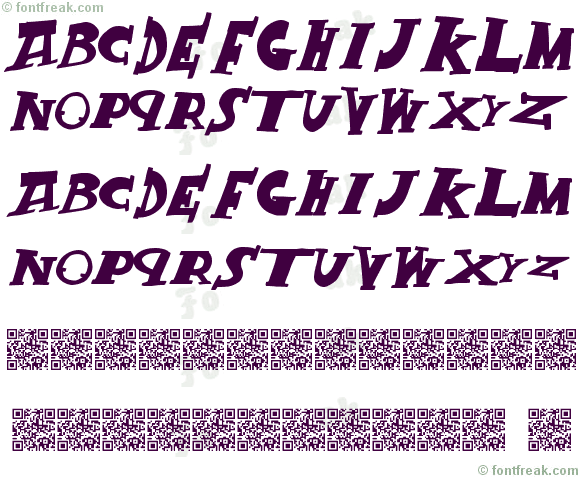
CrackKing
CrackKing by Xerographer Fonts is a dynamic display typeface that exudes a playful yet bold character. This font falls into the decorative category, showcasing an energetic style that captures attention effortlessly. The letters feature a mix of thick and thin strokes, contributing to a striking contrast that enhances readability while maintaining an artistic flair. The irregular baseline and varying letterforms add a sense of movement, making CrackKing visually intriguing. The spacing is well-calibrated, ensuring legibility even in larger sizes, while its unique decorative elements offer a fun twist suitable for various creative projects.
This versatile font is perfect for a range of applications, including vibrant movie posters that demand to stand out, eye-catching restaurant menus that invite diners in with personality, and engaging social media graphics that resonate with followers. Additionally, it can be an excellent choice for event flyers and promotional materials, adding a touch of excitement to any campaign. The CrackKing font is particularly appealing to graphic designers, small business owners, and content creators seeking to infuse their work with a distinctive style that captures attention.
CrackKing stands out in the crowded font landscape due to its unique blend of playfulness and boldness. Its ability to convey energy and creativity makes it an ideal choice for projects that aim to engage and inspire. With its freeware license, users can easily access the CrackKing font free download, making it an attractive option for anyone looking to elevate their designs without breaking the bank. Whether you’re crafting a whimsical invitation or a promotional piece, CrackKing is sure to leave a lasting impression.